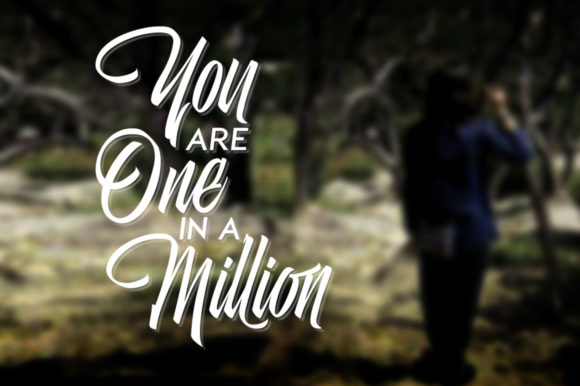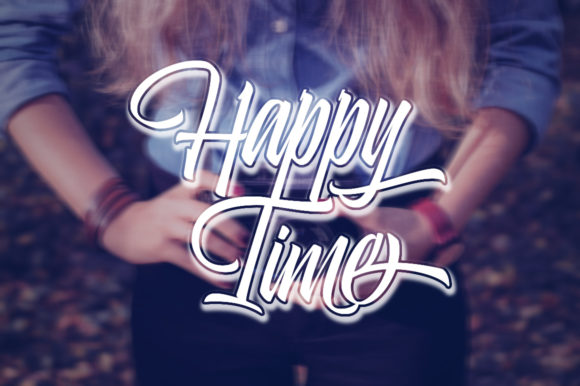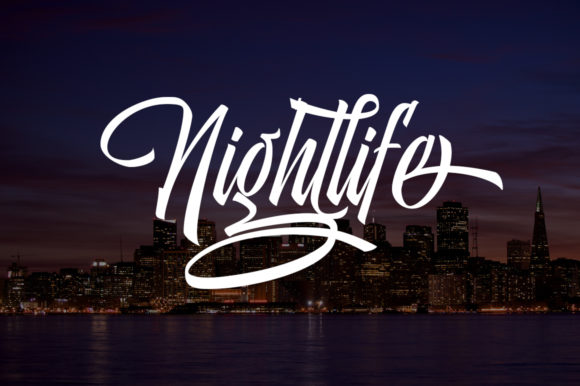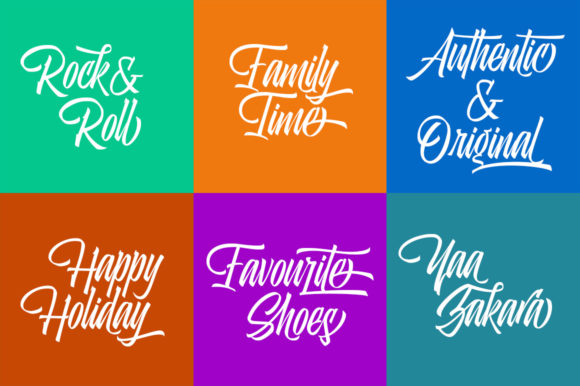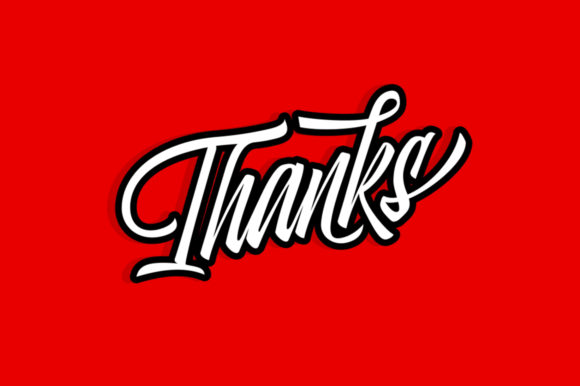
HomeScript FontsAgistha Font Script Fonts Agistha Font FacebookXPinterestWhatsApp Agistha Font Poster 2 Agistha Font Poster 3 Agistha Font Poster 4 Agistha Font Poster 5 Agistha Font Poster 6 About Agistha Font Aghista Script is a new smooth font with a bold twist. Use it to add a unique feel to any design project. DOWNLOAD ON CREATIVE FABRICAThis font is sold and delivered by Creative Fabrica. Font Canyon may earn a commission if you buy through this link. People also explored Lovely Font Ameliatina Font Genjutsu Font Morning Aspiration Font Shiny Font Palegina Font Nice Memory Font Stupiec Valley of Love Font 302 0 TagsAgistha Font Previous articleNovitha FontNext articleThe Braggest Font LEAVE A REPLY Cancel reply Comment: Please enter your comment! Name:* Please enter your name here Email:* You have entered an incorrect email address! Please enter your email address here Website: Save my name, email, and website in this browser for the next time I comment. Personal Use Free Fifteenth Century Personal Use Free Read more about this font Imelda Personal Use Free Read more about this font Casual Personal Use Free Read more about this font Special Day Personal Use Free Read more about this font BLOG Free vs Paid Fonts: Why Investing in Premium Fonts Is Worth It Free vs Paid Fonts: Why Premium Fonts Are Worth It in 2025 The debate of free vs paid fonts continues in the design world. While... Elegant Wedding Invitation Fonts – Handwritten & Script Fonts Best Fonts for T-Shirt Design – Top 2025 Picks The 10 Best Handwriting Fonts to Add Personality to Your Designs